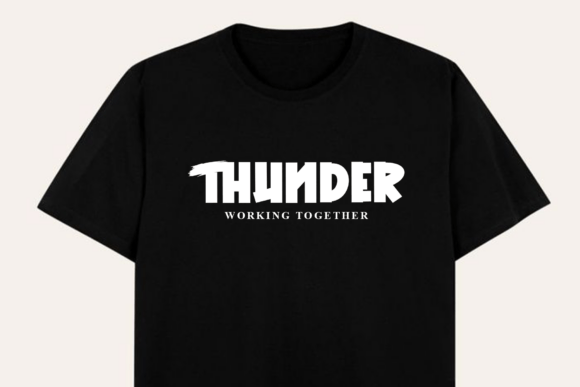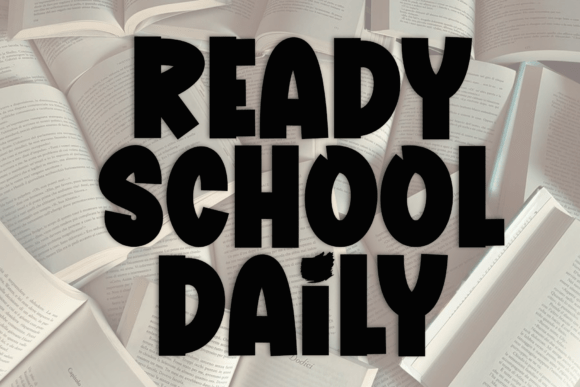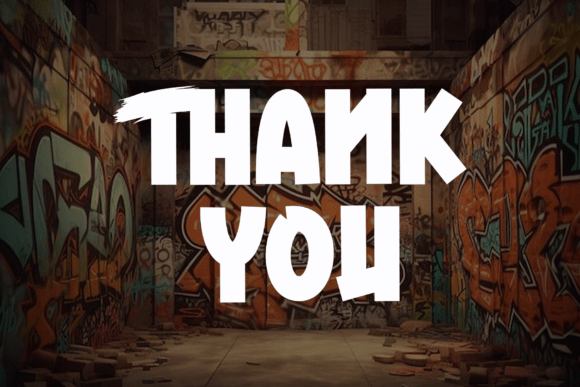
Introduction to Smiling Thinker Font
Smiling Thinker is a bold and edgy display font with a raw, hand-crafted aesthetic.
Inspired by street art and urban expression, its sharp angles and brush-style cuts bring energy and attitude to any design This font is ideal for posters, hip-hop or graffiti-inspired branding, streetwear labels, and bold headlines that demand attention.